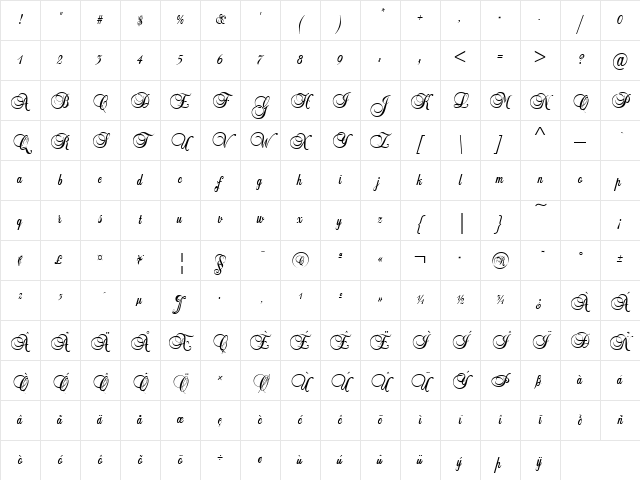
Ballad Regular
Design Context for Ballad
Ballad is a composed and adaptable typeface that performs quietly and consistently across a wide range of design contexts.
Pro Tip: Use Ballad in both headline and body roles to test its range before committing to a single application.